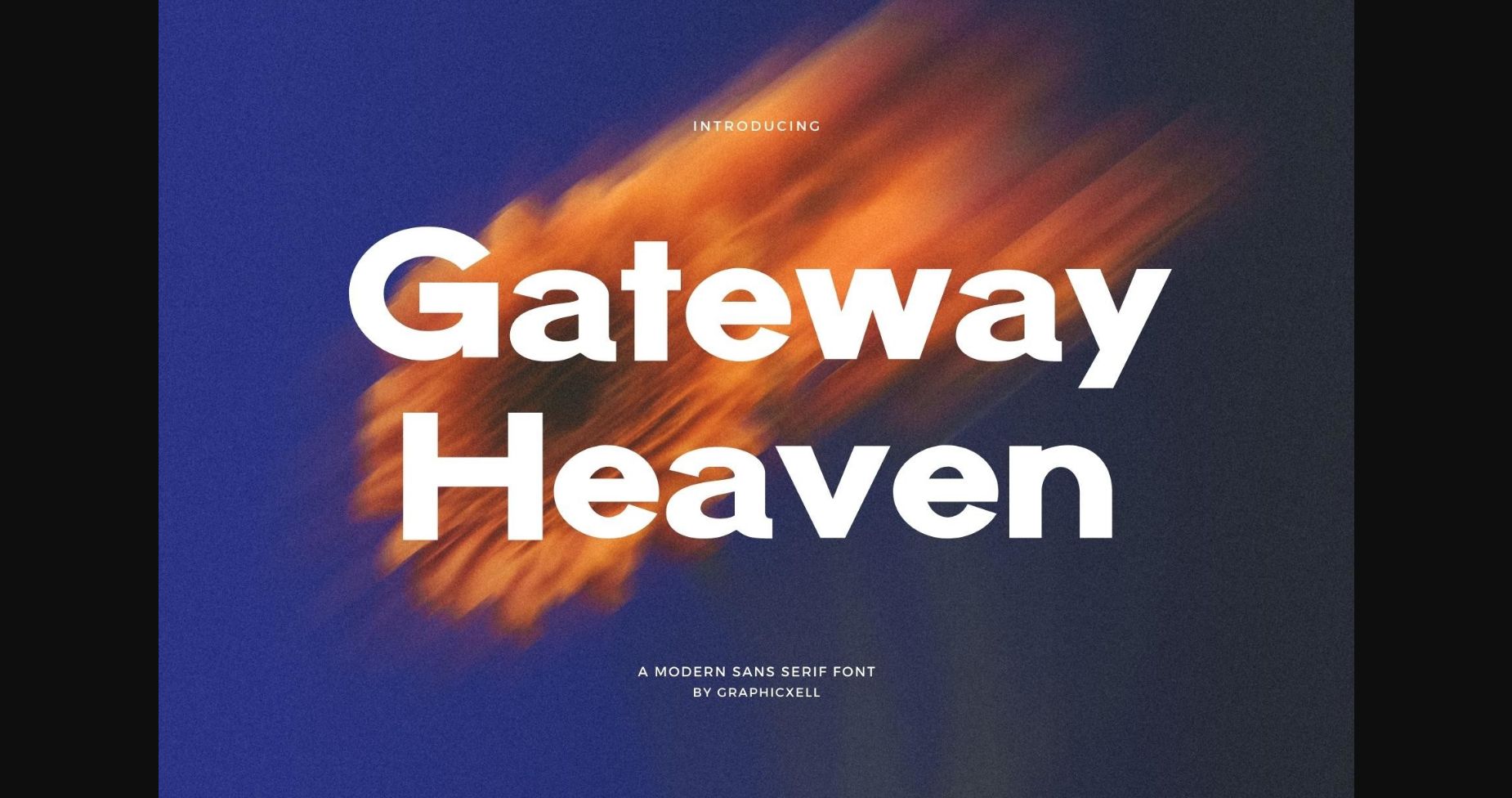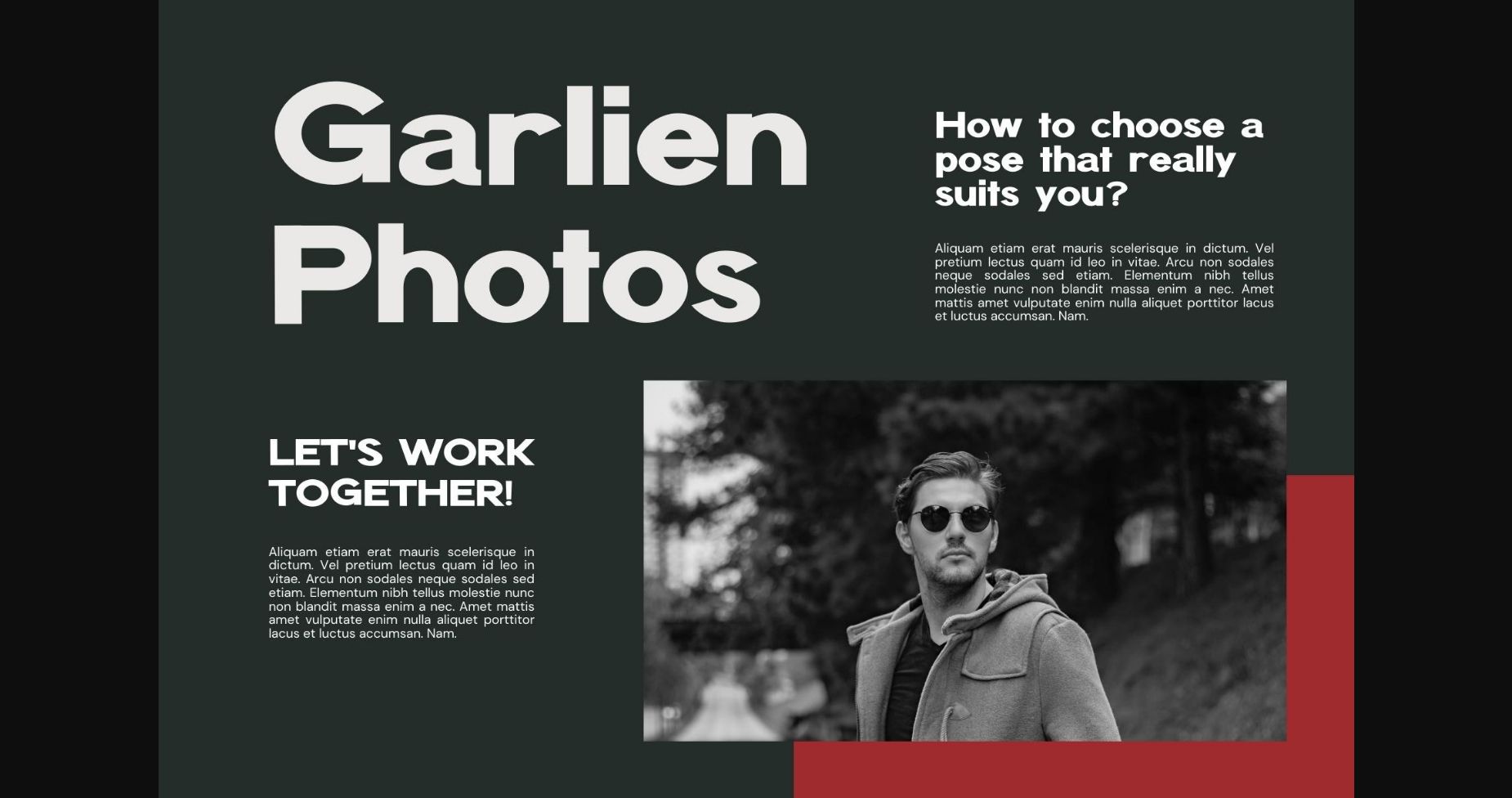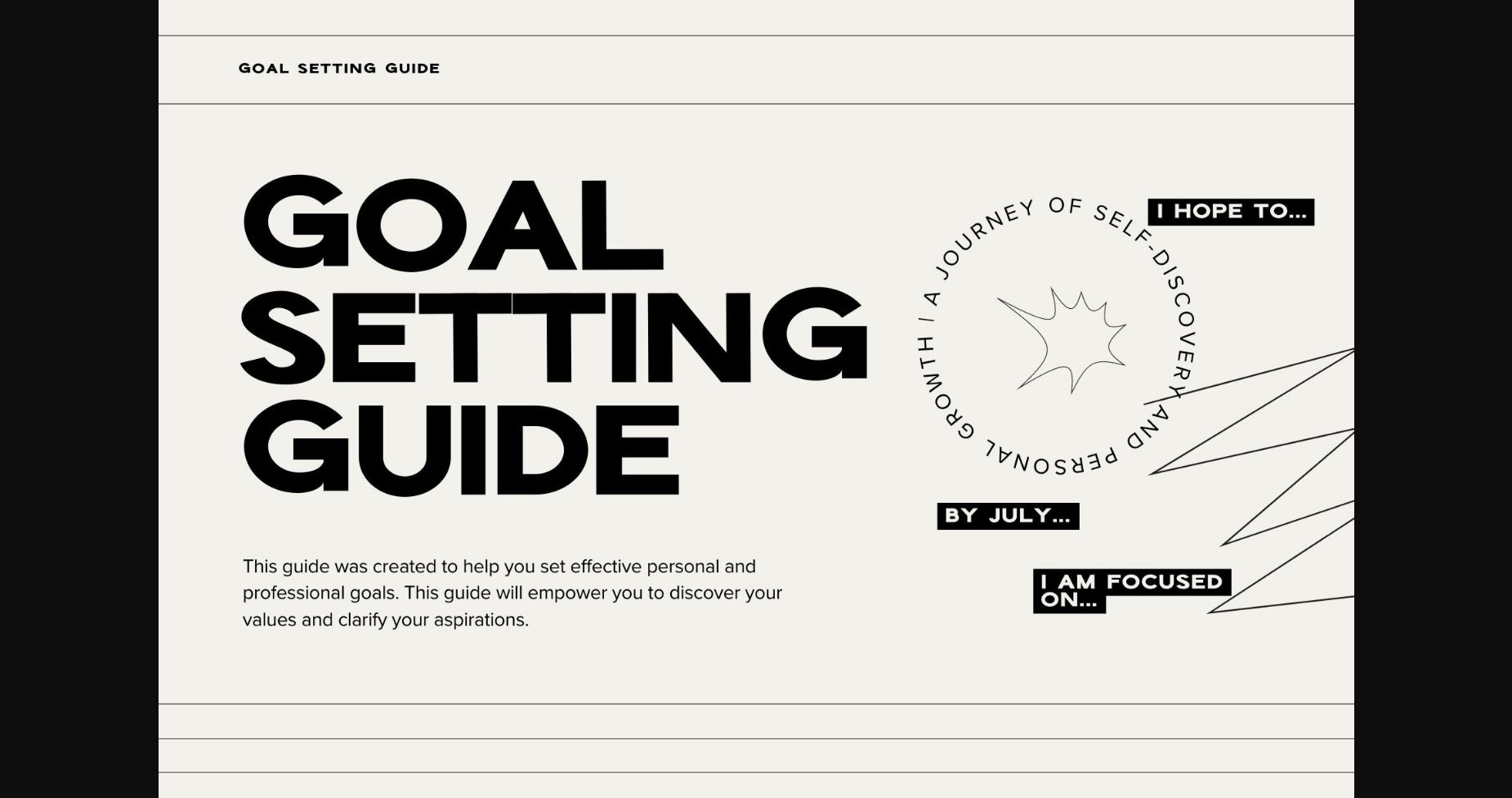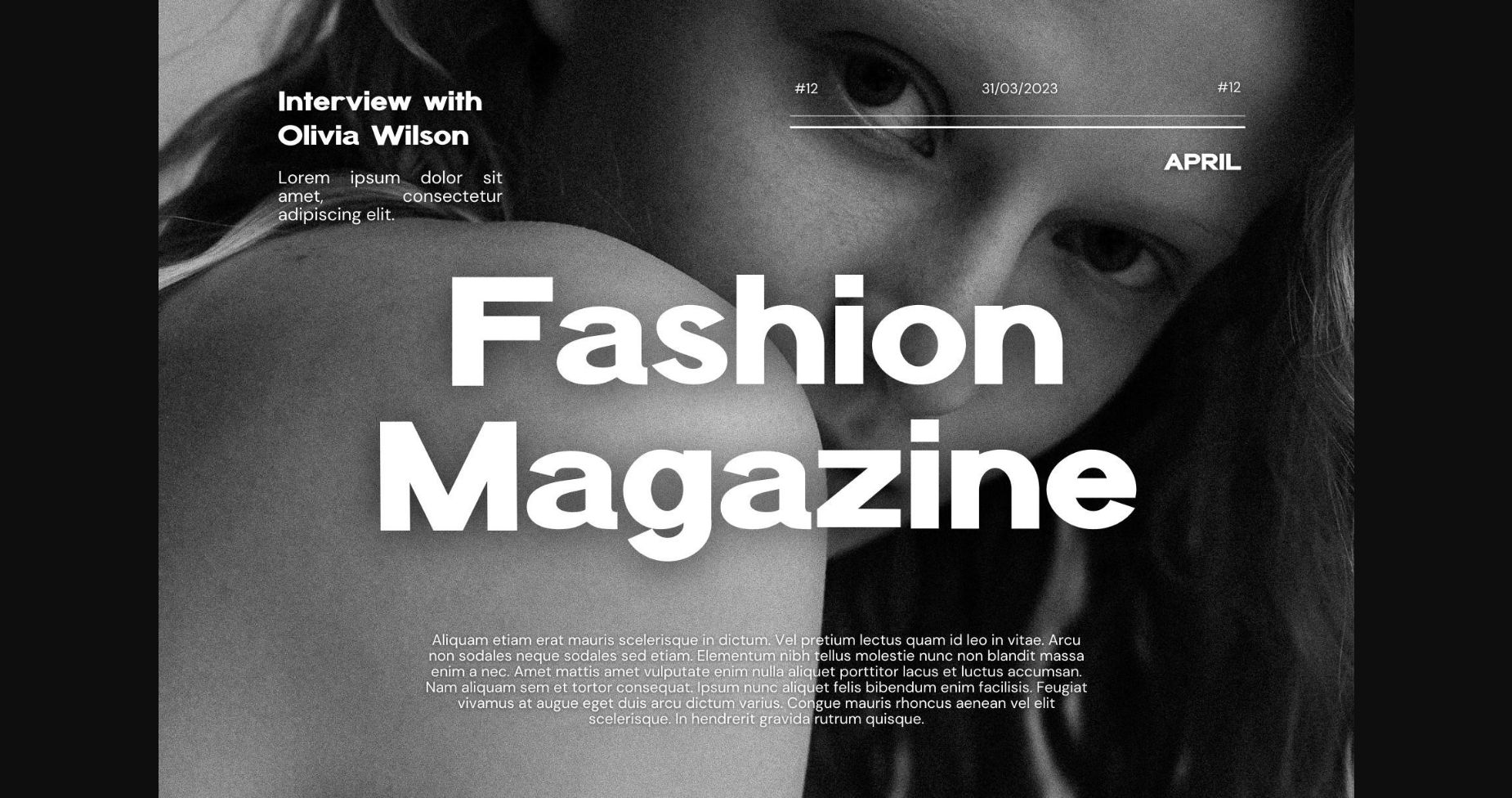
About Gateway Heaven Font
Gateway Heaven is a modern and cool sans serif font that exudes a sense of contemporary style and sophistication. With its clean lines and sleek letterforms, it offers a sleek and professional aesthetic. Perfect for branding, logos, and editorial design, Gateway Heaven commands attention and leaves a lasting impression. Its versatility makes it suitable for both digital and print applications, elevating any design project with its sleek and modern look.